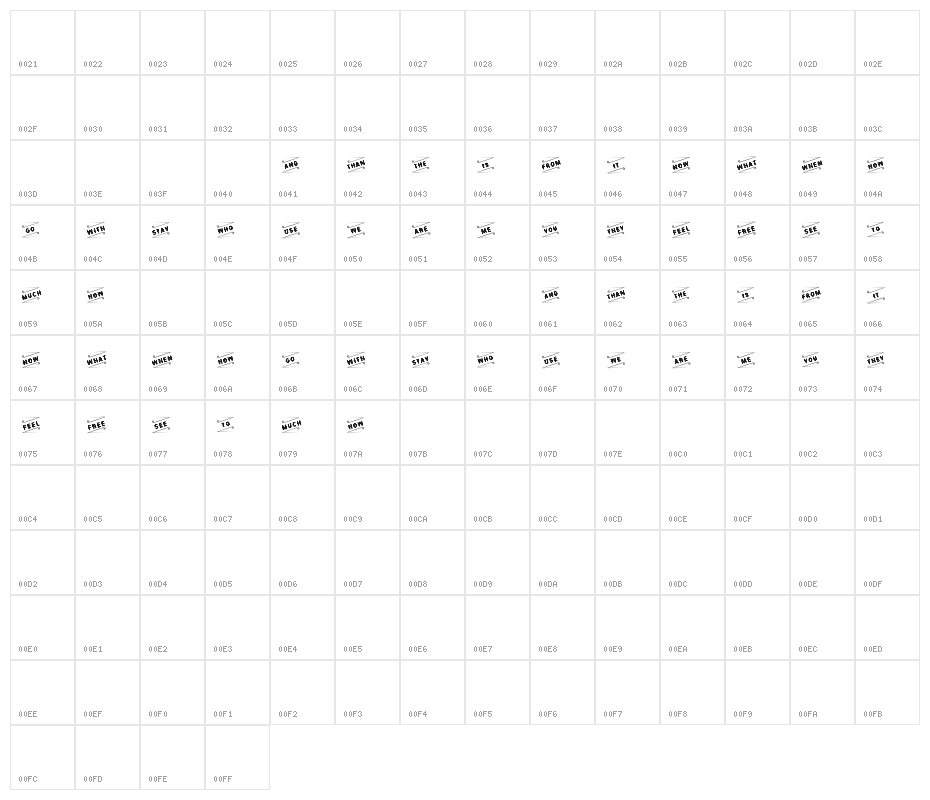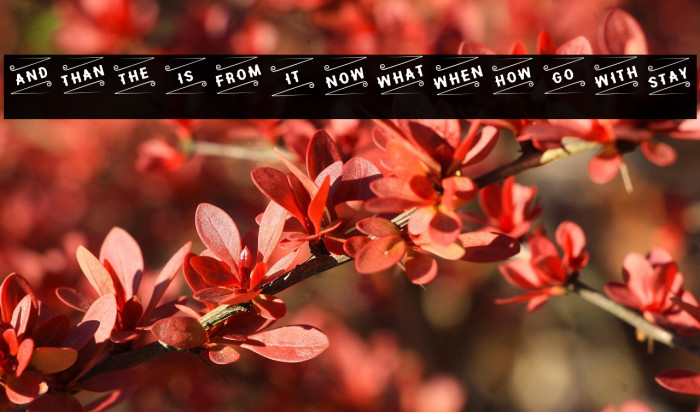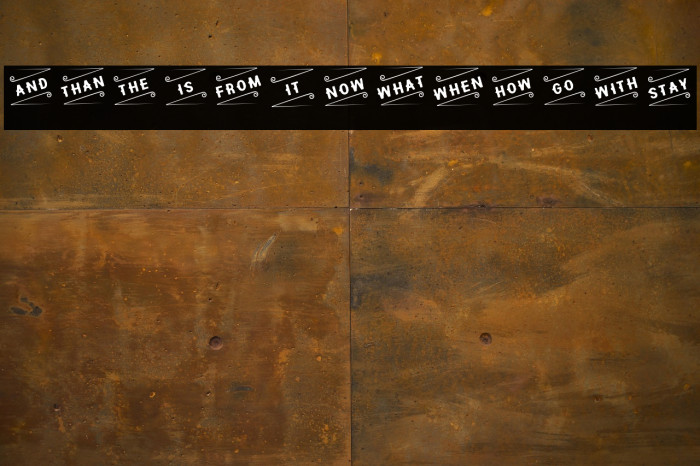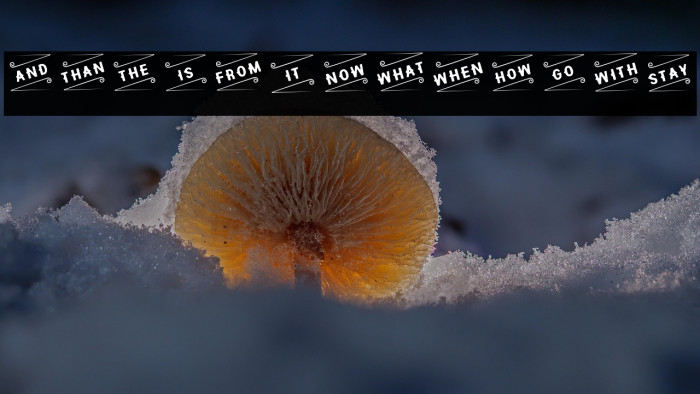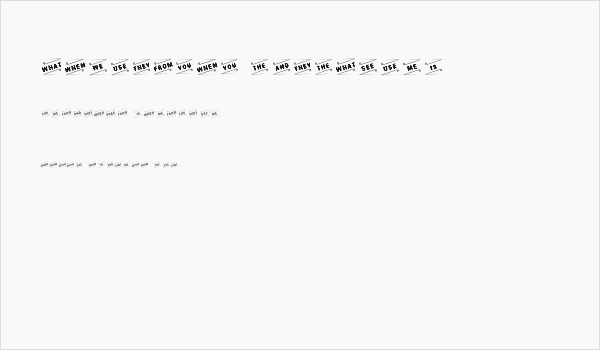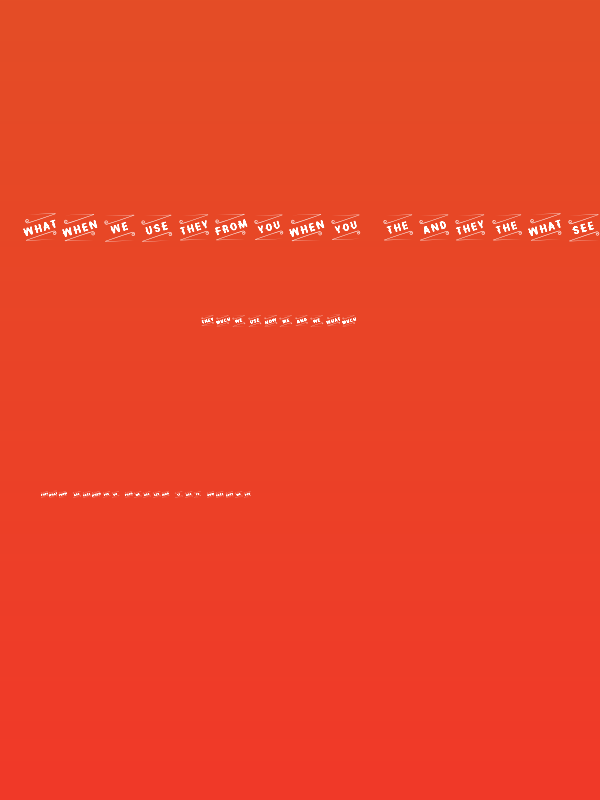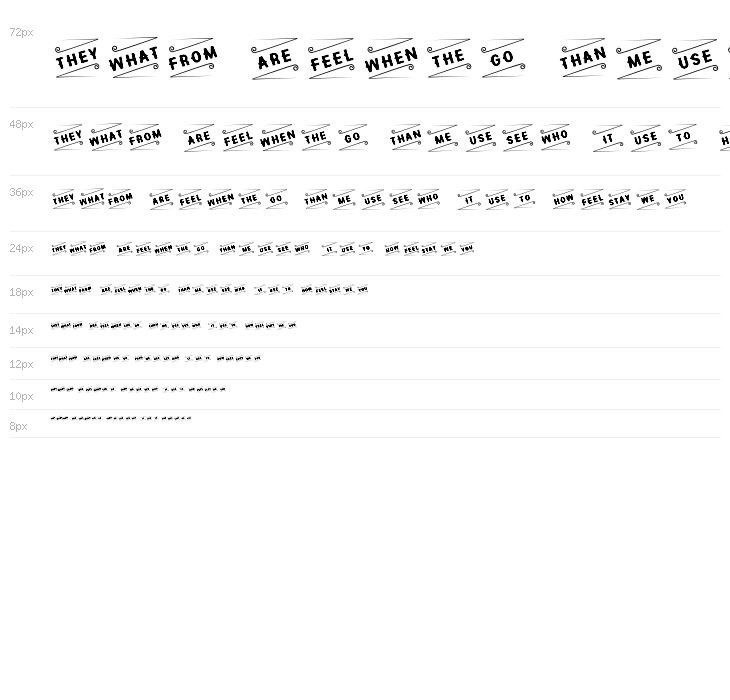
Hipotesis Catchword- Font
Hipotesis Catchword- Description
This font features a playful and dynamic style, characterized by bold, uppercase letters with a slight slant. Each letter is adorned with a unique underline that adds a sense of motion and flair. The strokes are thick and consistent, providing a strong visual impact. The letters are evenly spaced, ensuring readability while maintaining a lively appearance. This font is ideal for creating eye-catching headlines or titles that require a touch of creativity and energy. Its distinctive style makes it suitable for projects that aim to convey a sense of fun and excitement.
| Overall Style | Playful, Energetic, Creative |
| Use Case | Headlines, Titles, Branding |
| Proposed Projects | Ideal for posters, event flyers, children's book covers, and branding materials that require a fun and energetic look. |